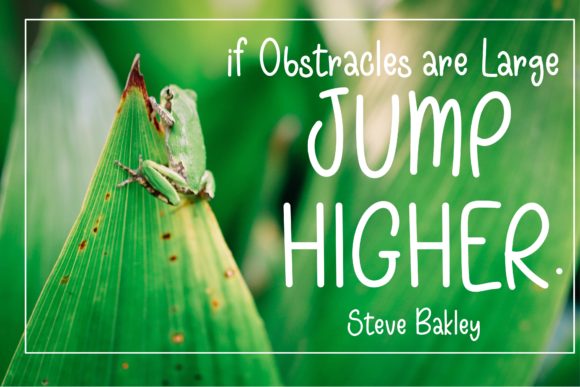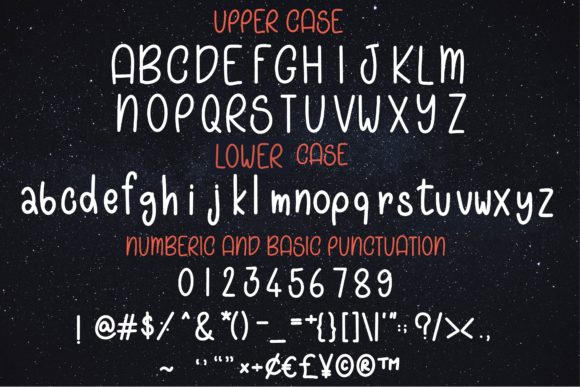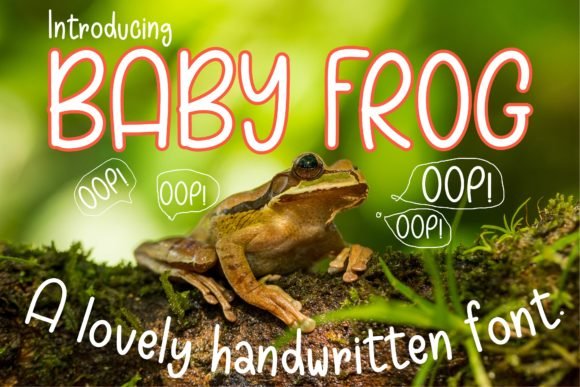
The Perfect Addition to Your Creative Toolbox
You know that feeling when a spark of creativity strikes, and you can’t wait to bring your idea to life? Maybe it’s a new design concept, a handmade card, or a post for social media. Whatever it is, the right font can make all the difference. That’s where the Baby Frog Font comes in – a charming and casual handwritten font that exudes warmth and friendliness.
This delightful font is perfect for designers who want to add a personal touch to their projects. Whether you’re creating calligraphy scripts for DIY crafts, designing graphics for Instagram, or crafting a custom logo, Baby Frog Font is sure to elevate your work and make it stand out. Its versatility and charm make it a valuable addition to any designer’s toolkit, and we can’t wait to explore its possibilities together.
Baby Frog Font Key Features
- Font Style: Whimsical, Hand-Drawn, and Cartoonish
- Character Set: Includes a wide range of characters, including Latin, Cyrillic, and Greek alphabets
- Unique Characteristics: Unique frog-inspired illustrations, playful and cute design
Designer Review: Baby Frog Font
Overall, I was excited to dive into the world of Baby Frog Font, but my experience was a bit of a mixed bag. Let’s start with the good stuff:
- ✨ I love the playful, whimsical feel of this font. It’s perfect for projects that need a lighthearted touch, like children’s books or nursery decor.
- ✨ The font’s rounded edges and soft lines make it easy on the eyes, even at larger sizes.
- ✨ The font’s versatility shines through in its many style options, from bold to italic.
However, there are some limitations to keep in mind:
- ⚠️ The font’s aesthetic, while charming, may not be suitable for all projects. It’s a bit too childish for more formal or professional applications.
- ⚠️ I found the font’s spacing to be a bit inconsistent at times, which can make it difficult to read in certain contexts.
Overall, Baby Frog Font is a solid choice for projects that require a playful, approachable feel. While it may not be the best fit for every design, it’s a great option for those looking to add some whimsy to their work.
The Baby Frog Font is ideal for:
- Children’s book covers and illustrations.
- Playful branding and marketing materials.
- Whimsical greeting cards and party invitations.
Remember to use the font in moderation to avoid overwhelming your design.
Alternatives to Baby Frog Font
Lobster Font is a fun, cursive font suitable for titles, headings, and short paragraphs. It’s ideal for creating a playful atmosphere in advertisements, social media posts, and children’s content. Lobster Font has a similar cursive feel to Baby Frog Font but with a more refined, elegant touch.
Great Vibes Font is a modern, script font perfect for creating a friendly and approachable tone. It’s ideal for use in branding, logos, and short paragraphs. Great Vibes Font is similar to Baby Frog Font in its playful feel but has a more contemporary and sleek appearance.
Cream Soda Font is a vintage, cursive font reminiscent of the 1920s. It’s suitable for creating a nostalgic atmosphere in advertisements, posters, and editorial content. Cream Soda Font has a similar vintage feel to Baby Frog Font but with a more distressed and worn look.
Carolyna Pro Font is a elegant, script font ideal for creating a sophisticated and feminine tone. It’s suitable for use in branding, logos, and long-form content. Carolyna Pro Font is similar to Baby Frog Font in its cursive feel but has a more refined and polished appearance.
Creative Projects with Baby Frog Font
Project 1: Froggy Garden Invitation
Create a whimsical invitation for a garden-themed party using the Baby Frog Font.
What is the recommended font size for using the Baby Frog Font?
The recommended font size for the Baby Frog Font is between 12pt and 24pt. This size range allows for clear readability while maintaining the font’s unique character and charm. However, feel free to experiment with different font sizes to achieve the desired visual effect for your design project.